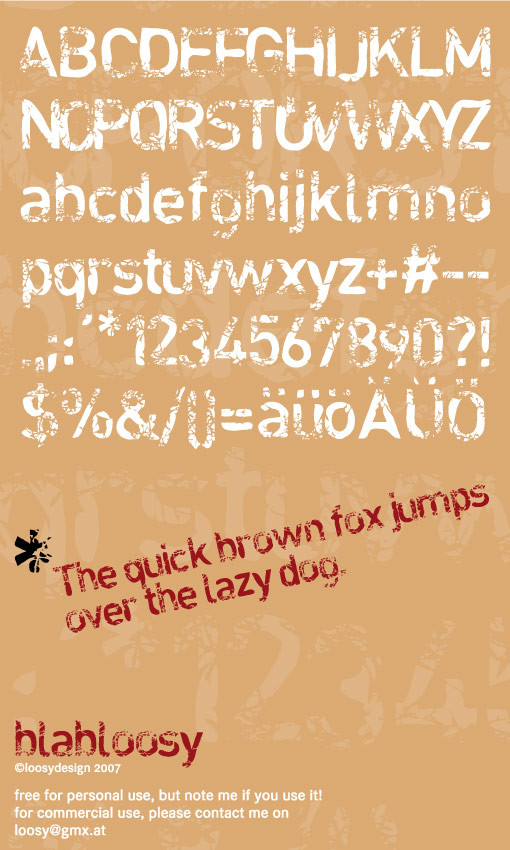
Brilliant font, I like it a lot, nice shape with good grunge effect.
print>destroi>scan>autotrace odo?
Obo widdo sehr geil!
na, open font, wos nettes zum destroyen baudn autotrace, vereinfachen und ferig!